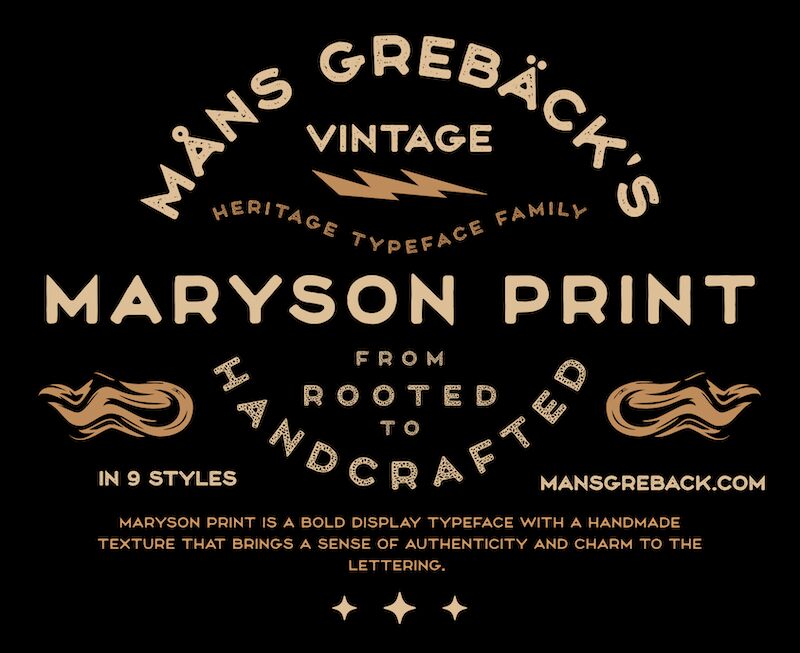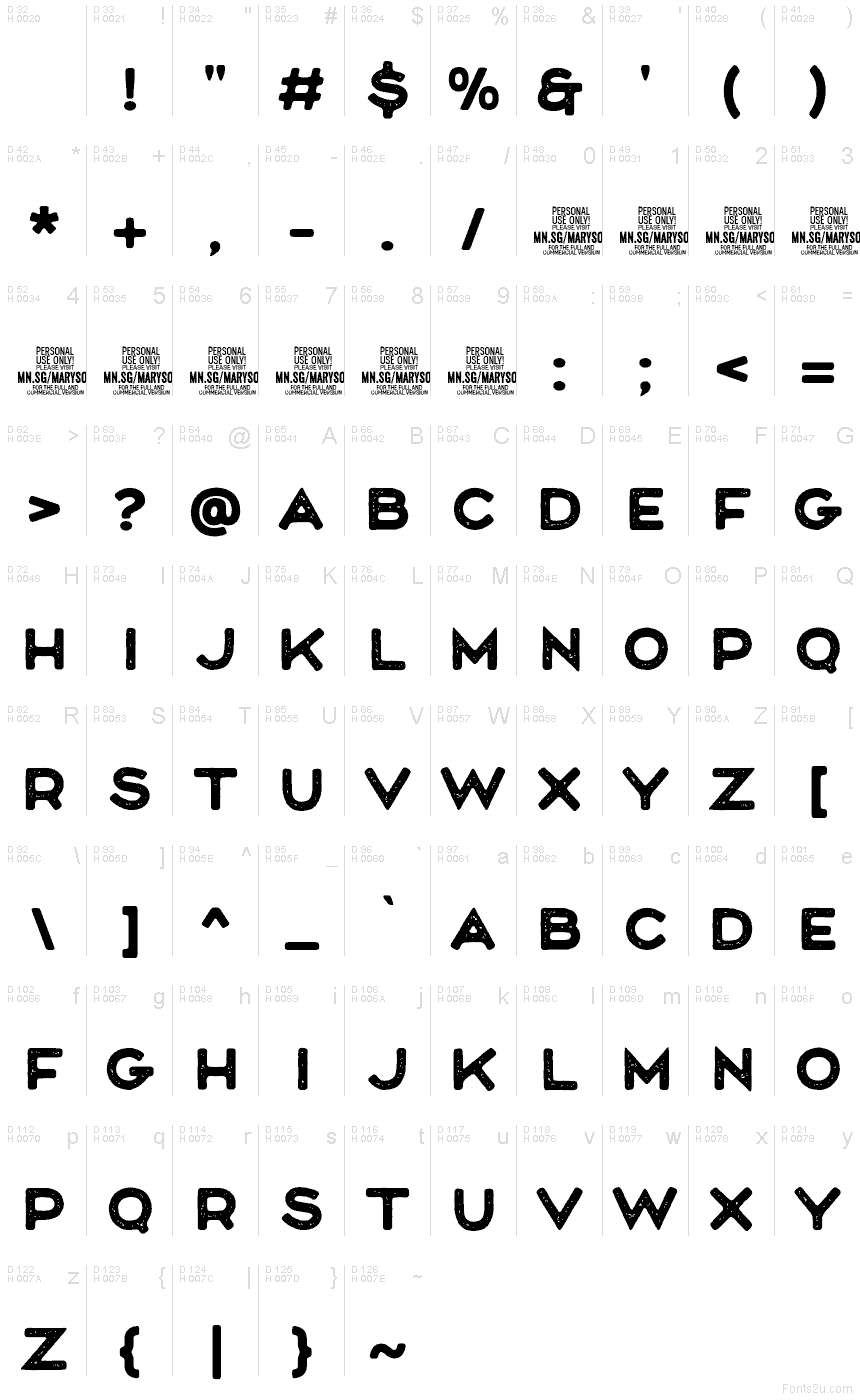
Maryson Rough PERSONAL USE Regular
Maryson Rough font by Mans Greback is a free eroded display typeface that looks like bold, rounded letters stamped onto coarse paper and worn down over time. Its chunky, friendly shapes are punched through with irregular speckles and scuffs, giving each word a tactile, printed-by-hand feel while still staying clean and legible from a distance. The Maryson family roots keep the rhythm steady, so the distressed texture feels intentional rather than messy.
Using Maryson Rough, you can bring gritty charm to posters, beer or coffee labels, event flyers, merch graphics, bold logotypes, and social media title cards. This free font shines when set large, letting the pitted texture really show; pair it with a simple, neutral sans serif for body copy to keep layouts balanced and readable.